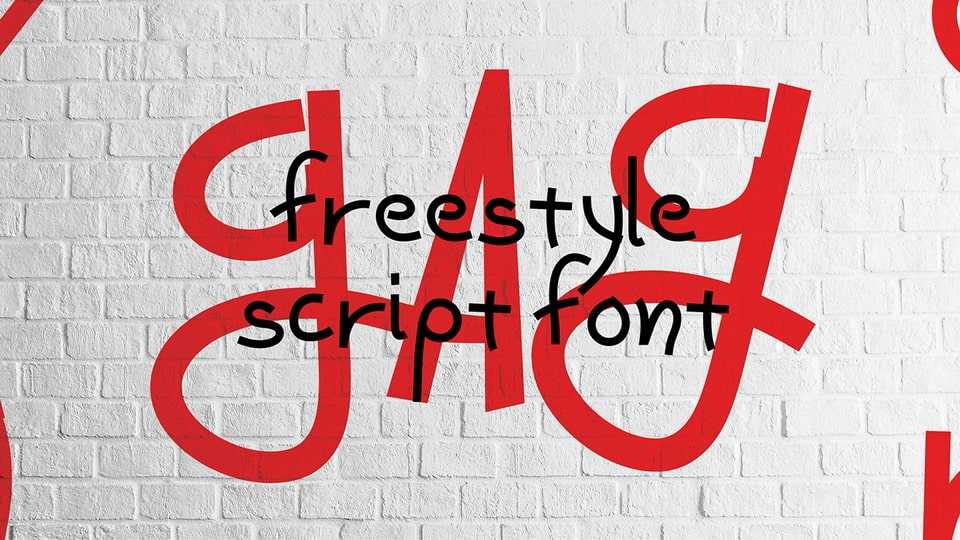
Download Gag font, a playful and freestyle hand-drawn script typeface that brings a whimsical and carefree spirit to your designs. Gag font is crafted with spontaneous strokes, making this font a perfect choice for projects that demand a touch of genuine, hand crafted charm